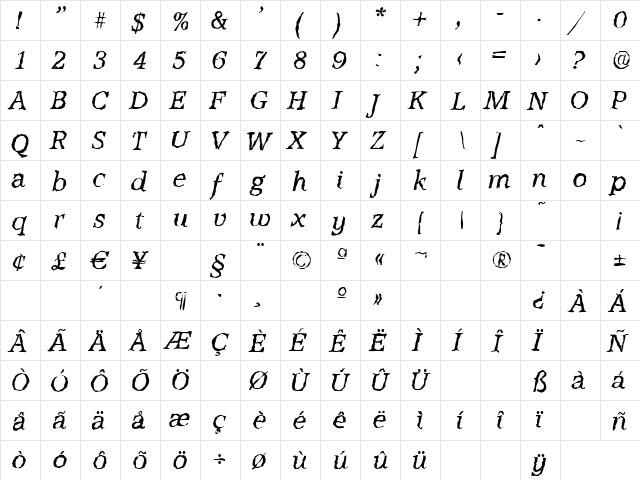
MichaelBeckerRandom Italic
MichaelBeckerRandom takes a measured approach to typography — its balanced proportions and neutral character make it a reliable workhorse for both digital and print work. The dynamic lean of this cut emphasises speed and emphasis in any layout.
Pro Tip: Use MichaelBeckerRandom for emphasis, pull quotes, and subheadings where its slanted energy can add rhythm to the layout.